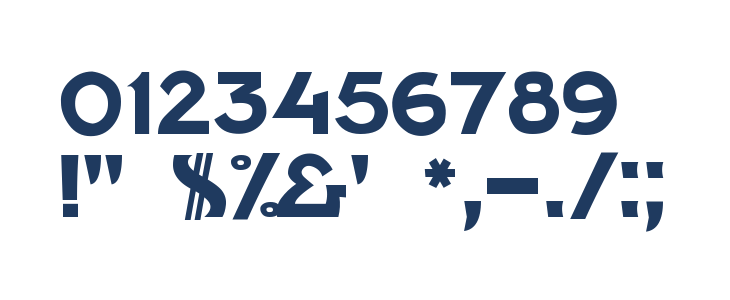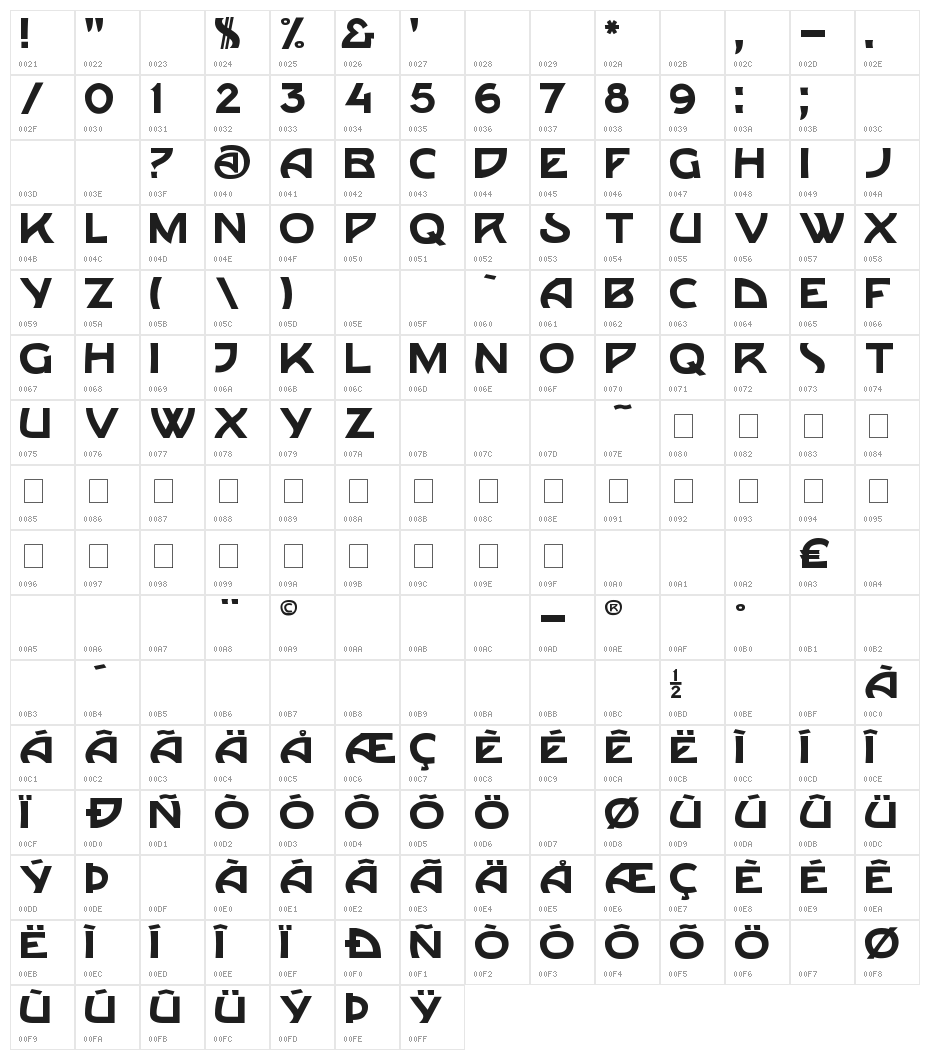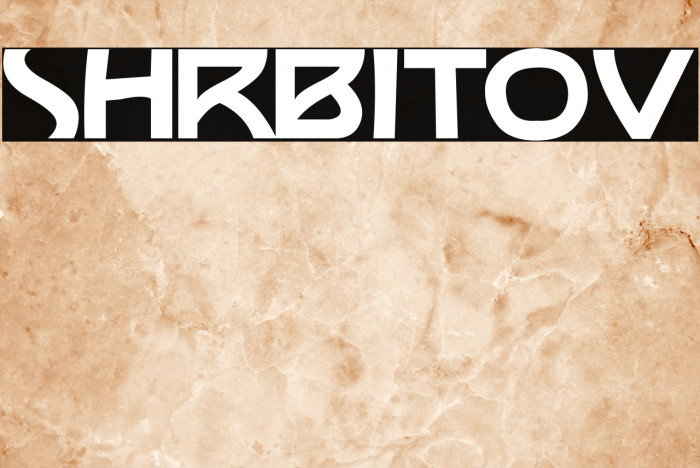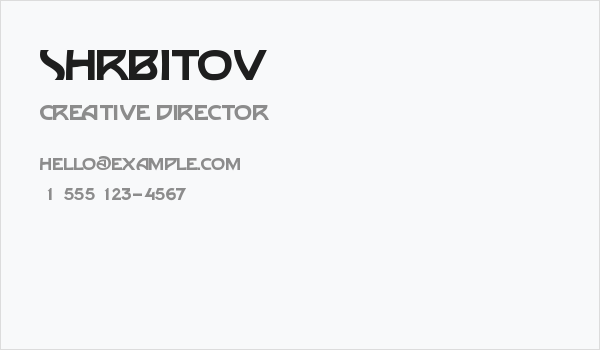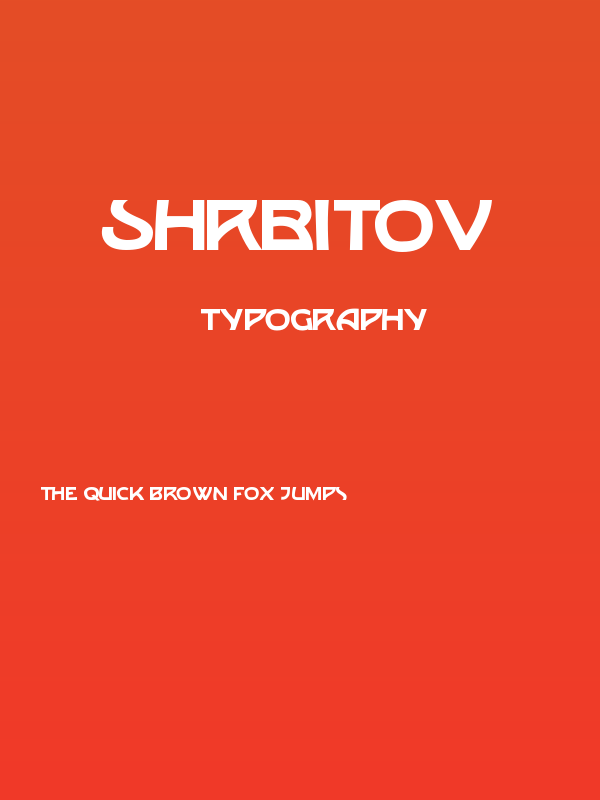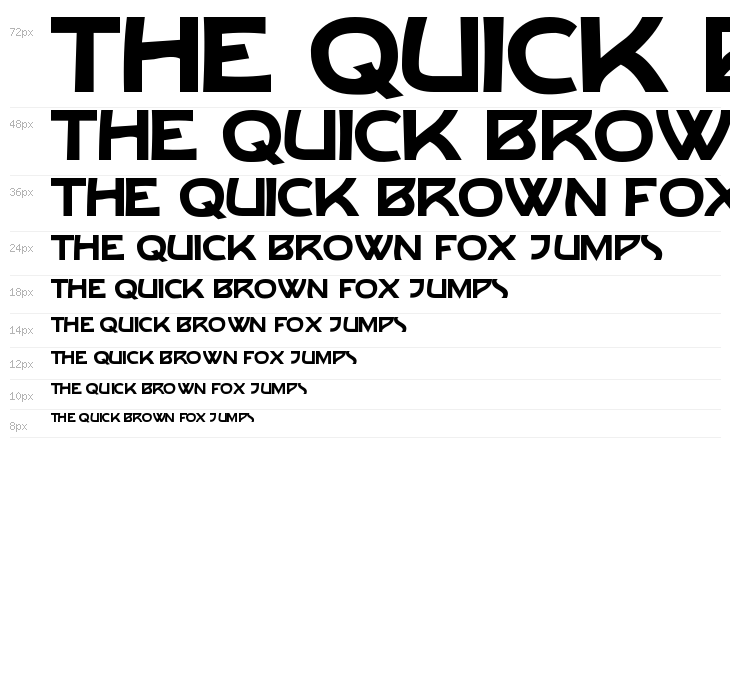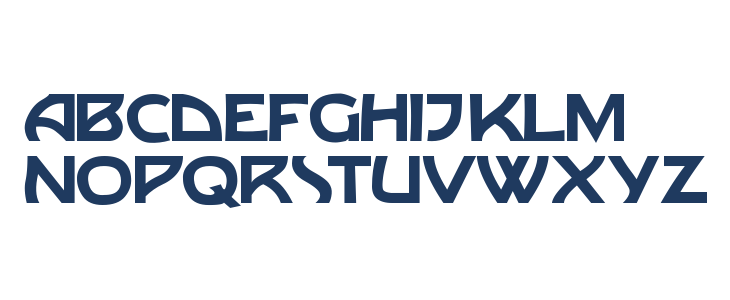
shrbitov Font
shrbitov Description
This font features a bold and dynamic design with sharp, angular edges and a futuristic aesthetic. The characters are uniquely styled with a geometric influence, creating a sense of movement and energy. The uppercase and lowercase letters maintain a consistent style, with a strong emphasis on diagonal lines and sharp corners. The numbers and special characters follow the same design principles, ensuring a cohesive look across all elements. The font's boldness and distinct style make it stand out, ideal for projects that require a modern and edgy appearance.
| Proposed Projects | Ideal for sci-fi themed projects, modern branding, video game titles, and edgy graphic designs. |